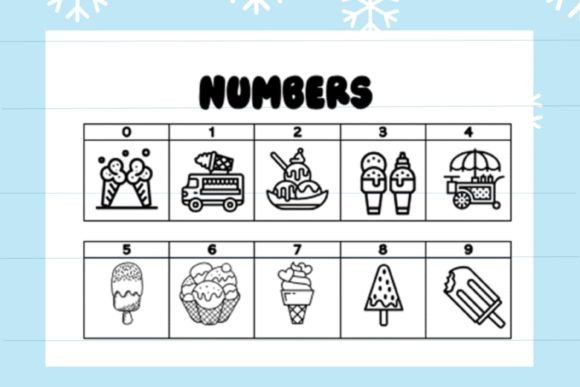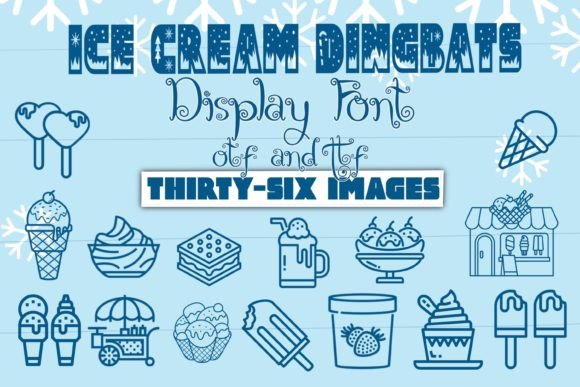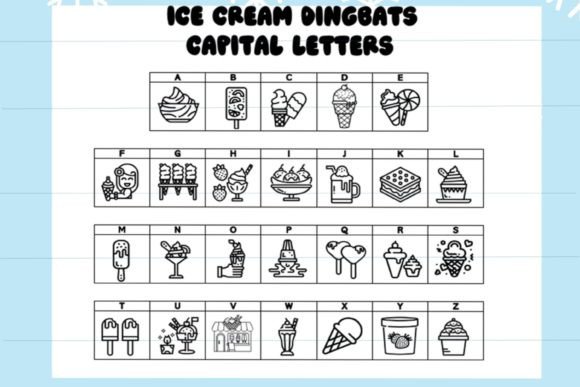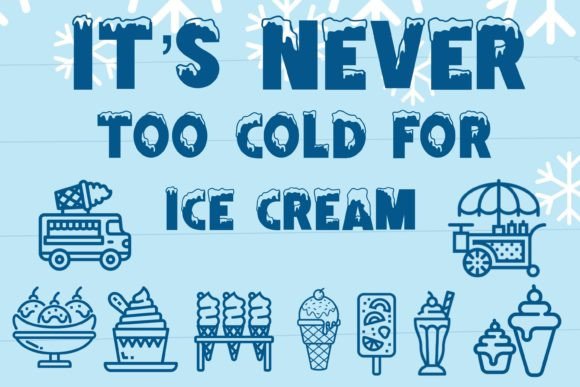
Ice Cream Font
About Ice Cream Font
Introducing “Sweet Treats,” a delightful and whimsical dingbats font that celebrates the joy of ice cream in all its delicious forms. Whether you prefer it in cones, bowls, bars, sandwiches, sundaes, shakes, or sodas, this font has got you covered with its delightful collection of ice cream-themed symbols.
With “Sweet Treats,” you can add a touch of whimsy and playfulness to your projects or embellish any design related to ice cream. From single, double, or triple scoops to cones, bowls, and even ice cream sandwiches, this font offers a wide variety of adorable and mouth-watering icons that will instantly evoke cravings for your favorite frozen treat.
Indulge your creativity and use the “Sweet Treats” dingbats font to enhance your designs. Whether you’re designing posters, menus, party invitations, greeting cards, or creating digital graphics for social media, this font will bring a sense of fun and sweetness to your creations. Decorate your ice cream parlor signage, add whimsical icons to your ice cream-themed websites, or create eye-catching packaging for your frozen dessert products.
The versatility of the “Sweet Treats” font allows you to mix and match the symbols, layer them, or use them individually to create delightful compositions. From sprinkles and cherries to cones and waffle bowls, the charming icons provide endless possibilities for adding visual interest to your designs. Let your imagination run wild as you create enticing visuals that capture the essence of everyone’s favorite frozen treat.
Satisfy your sweet tooth and bring a touch of whimsy to your projects with the “Sweet Treats” dingbats font. Whether you’re a fan of classic flavors or adventurous combinations, this font captures the joy and deliciousness of ice cream in every symbol. Let the delightful icons of “Sweet Treats” transform your designs into delectable creations that will make anyone’s mouth water.
Indulge in the sweetness of “Sweet Treats” and let this dingbats font add a delightful touch to your ice cream-related projects. Whether you’re creating menus, posters, invitations, or any other design, this font will bring a whimsical and mouth-watering element to your work. Embrace the joy of ice cream and make your designs stand out with the “Sweet Treats” font.